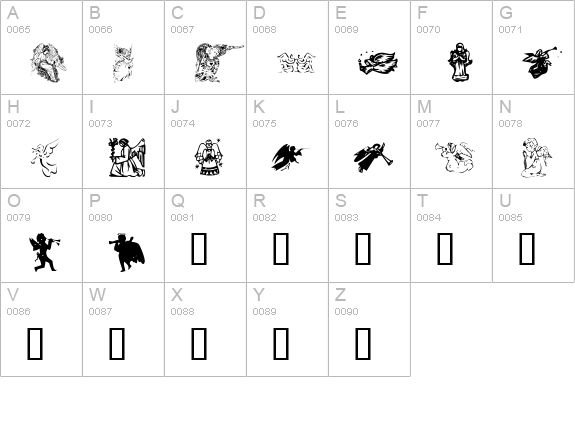
KR Christmas Angels Font Details
Introducing KR Christmas Angels font, a whimsical and festive typeface perfect for adding a touch of holiday magic to your designs. This charming font features delicate angel wings and playful flourishes, making it ideal for Christmas cards, invitations, posters, and more. The KR Christmas Angels font is free to download at FontsMarket.com, making it easily accessible for all your holiday design needs. With its unique and enchanting design, this font is sure to bring a touch of joy and cheer to any project. Embrace the spirit of the season with KR Christmas Angels font and spread some holiday magic today!